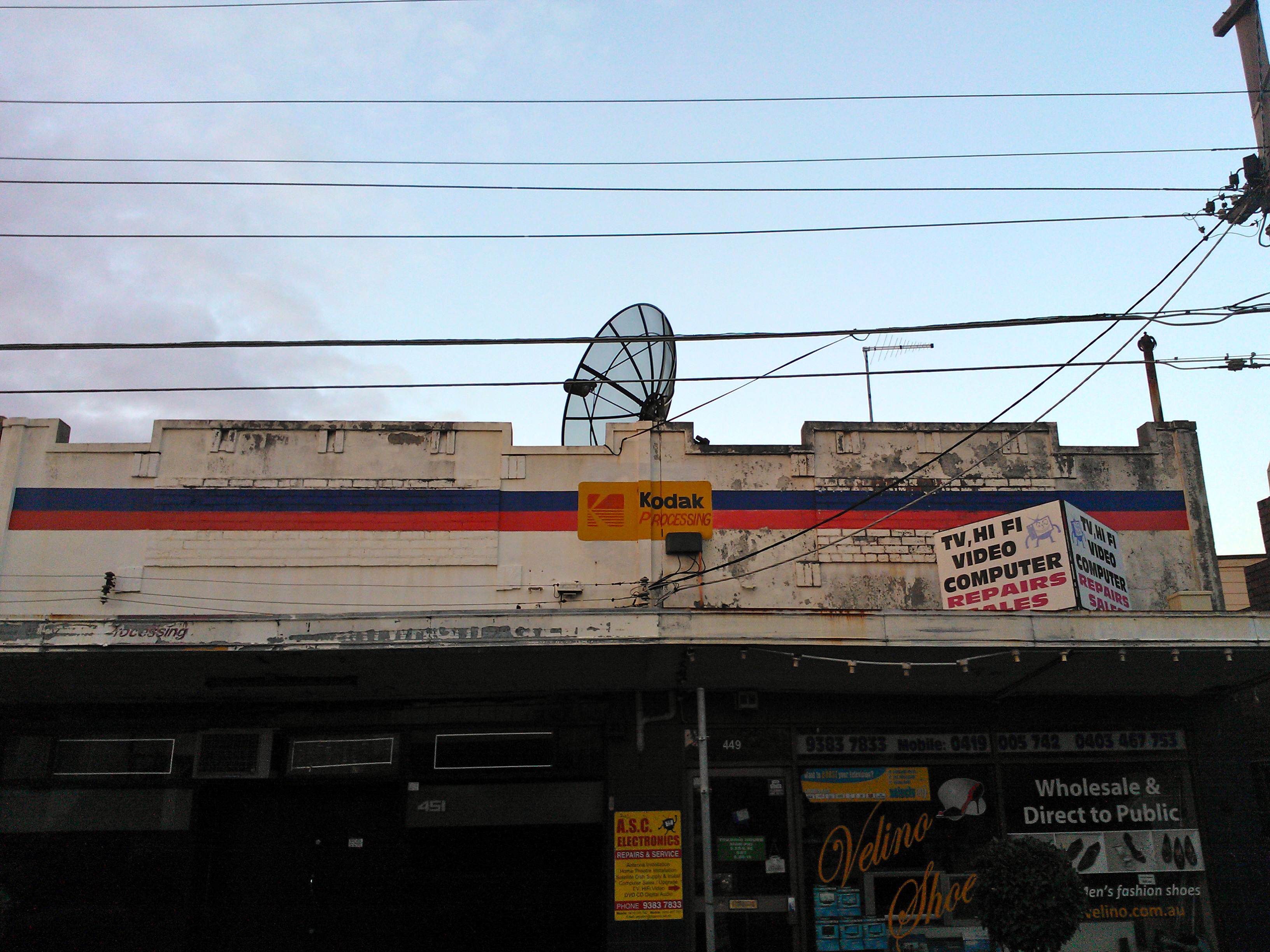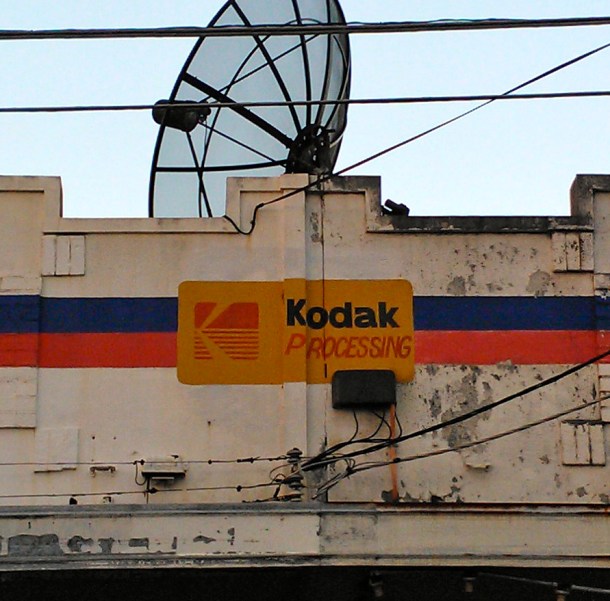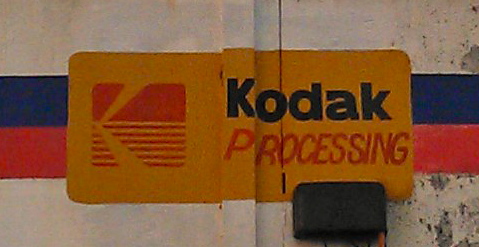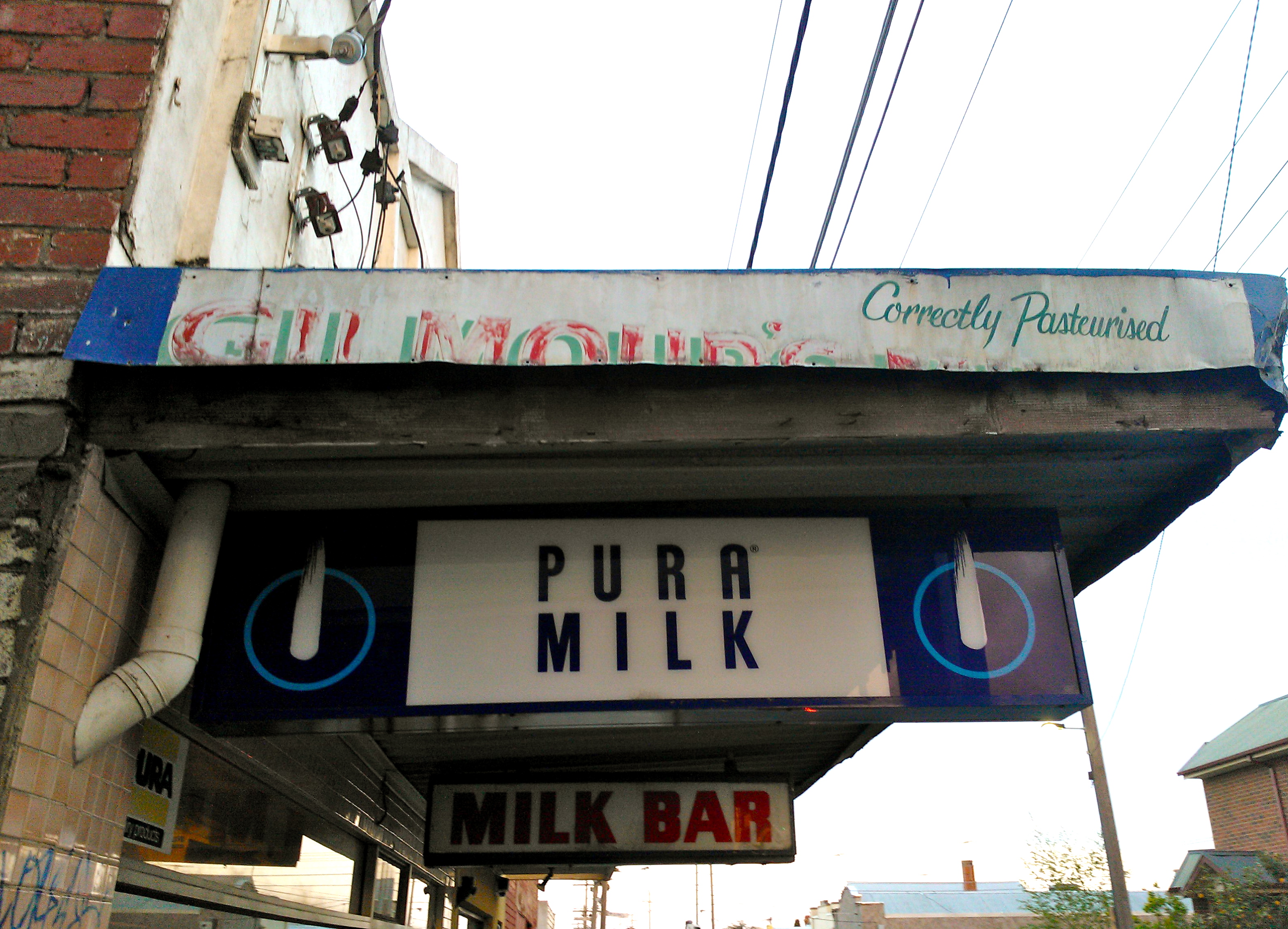
Kodak Processing and more
Albion St, Brunswick West.
I call this place, The Little Corner Who Could.
This is block of shops is right next to the Thor factory and had a few nice things to give up.
Enhance …
… ENHANCE!! …
Nice.
Next door was the shattered remains of another Gilmour’s Milk sign … “Correctly Pasteurised, yo.”
And just as I was leaving, I had a peak down the lane between the two shops and saw this cheeky rascal:
I can definitely make out “& ICE DRINKS” but not sure what is says above … Confectionery or something??
Either way, this was a great little strip.